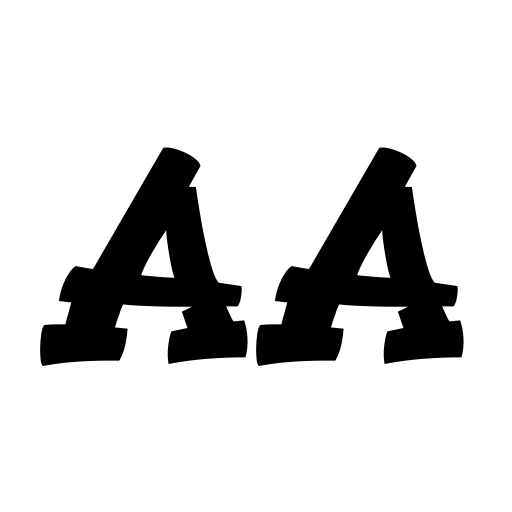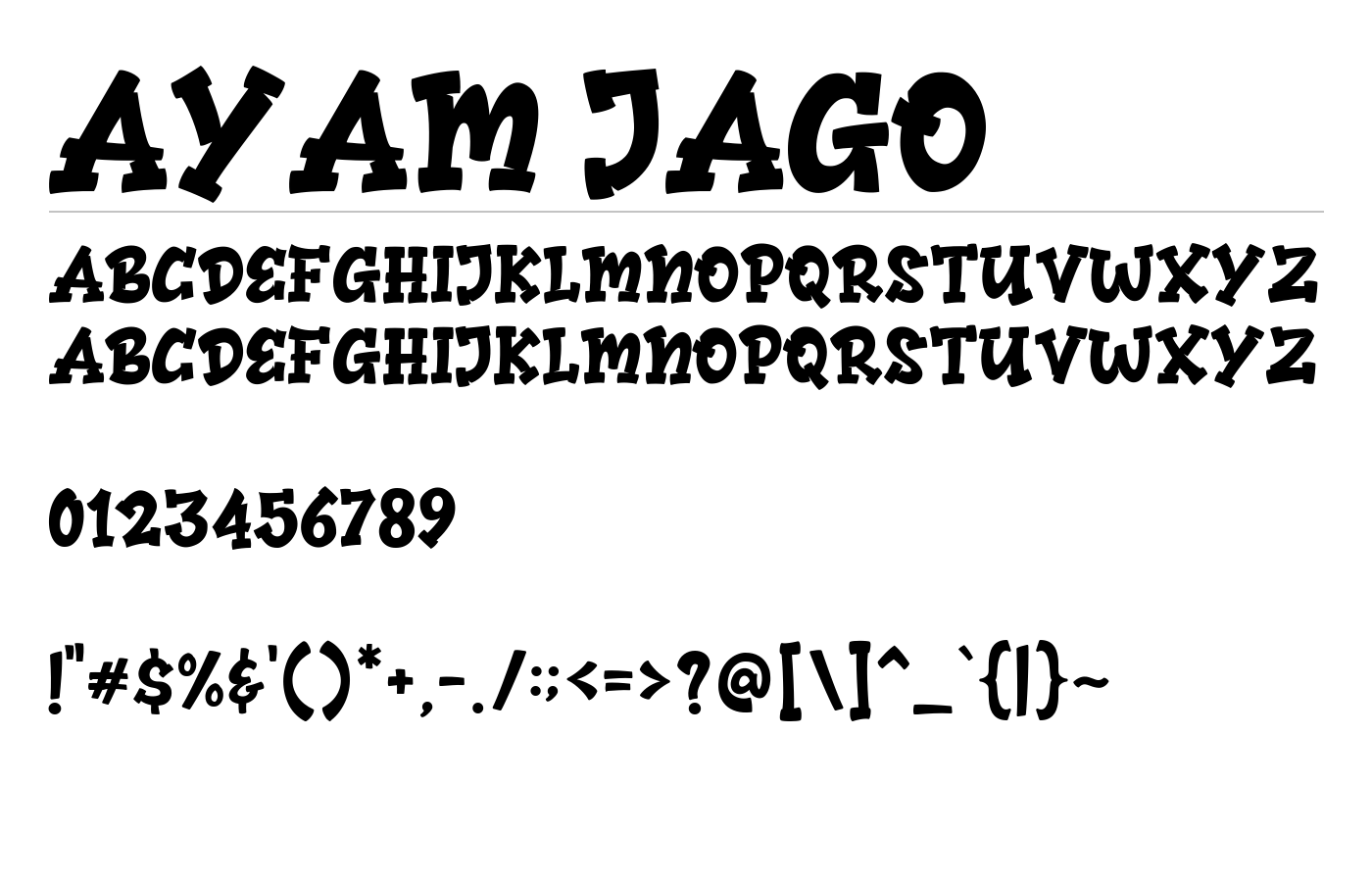
Ayam Jago is a bold, playful slab serif font with a friendly and energetic personality. Its thick, blocky serifs combined with slight irregularities give it a hand-crafted, lively feel, making it perfect for fun, casual branding, posters, and headlines that need a strong, eye-catching presence. This font works well where a quirky, approachable style is desired, especially in creative or informal design contexts.
Ayam Jago Font